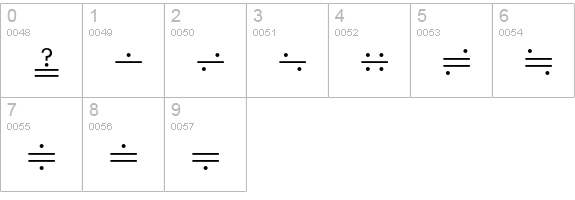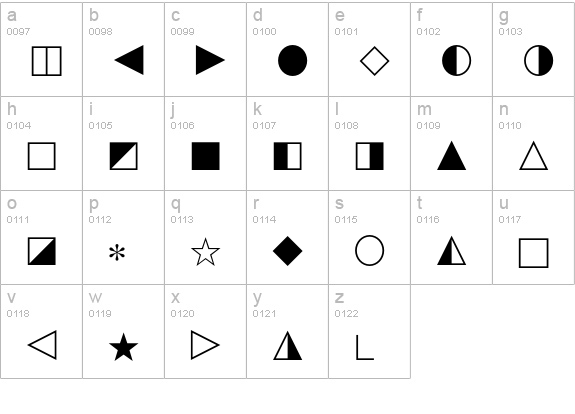
Mathematical Pi 6 Font Details
Mathematical Pi 6 font is a stunning and versatile typeface that is perfect for all your mathematical and scientific needs. This font is designed with precision and elegance, making it ideal for use in equations, formulas, graphs, and other mathematical symbols. With its clean and clear design, Mathematical Pi 6 font is highly readable, ensuring that your mathematical expressions are easily understood. Whether you are a student, a teacher, or a professional in the field of mathematics, this font will greatly enhance the presentation of your work. Not only is Mathematical Pi 6 font aesthetically pleasing, but it is also highly functional. Its comprehensive set of mathematical symbols includes everything from basic arithmetic operators to advanced mathematical notations, allowing you to express even the most complex equations with ease. One of the best features of Mathematical Pi 6 font is that it is freely available to download at FontsMarket.com. This means that you can access this incredible font without any cost, making it an excellent choice for budget-conscious individuals or organizations. When you download Mathematical Pi 6 font from FontsMarket.com, you can rest assured that you are getting a high-quality and reliable typeface. The font files are easy to install and can be used across various platforms and software applications, ensuring compatibility and seamless integration into your workflow. In addition to its exceptional design and functionality, Mathematical Pi 6 font also offers excellent legibility at different sizes and resolutions. This makes it suitable for a wide range of applications, from printed materials to digital presentations. Overall, Mathematical Pi 6 font is a fantastic choice for anyone in need of a versatile and professional mathematical typeface. Its free availability at FontsMarket.com makes it accessible to everyone, allowing you to enhance your mathematical communication without breaking the bank. Download Mathematical Pi 6 font today and unlock the potential of your mathematical expressions.